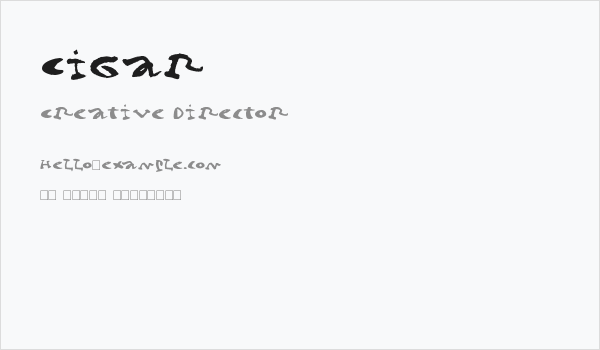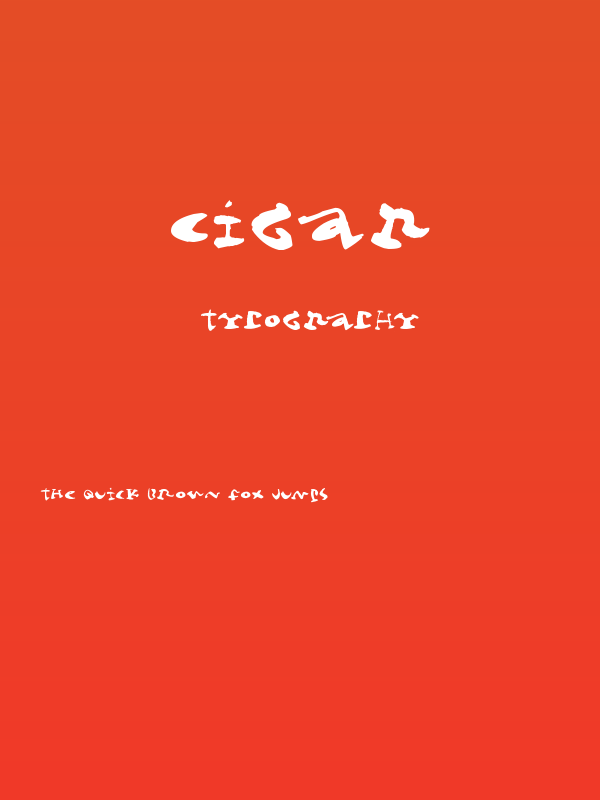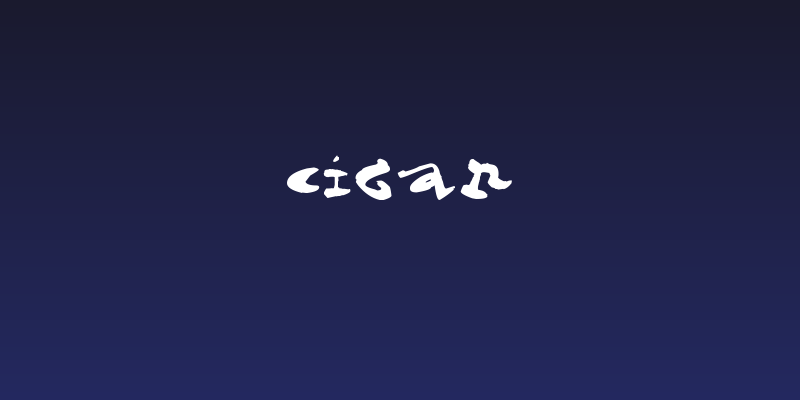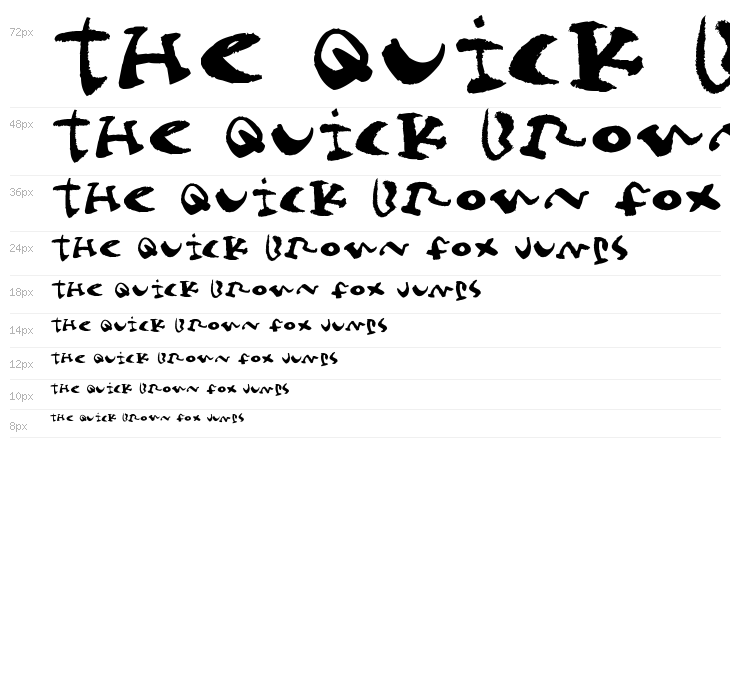
Cigar Font
| Gesamtstil | Artistic, Expressive |
| Anwendungsfall | Headlines, Posters, Branding |
| Vorgeschlagene Projekte | Ideal for creative projects such as posters, album covers, or branding for artistic ventures. It can also be used for headlines or titles that require a strong visual impact. |